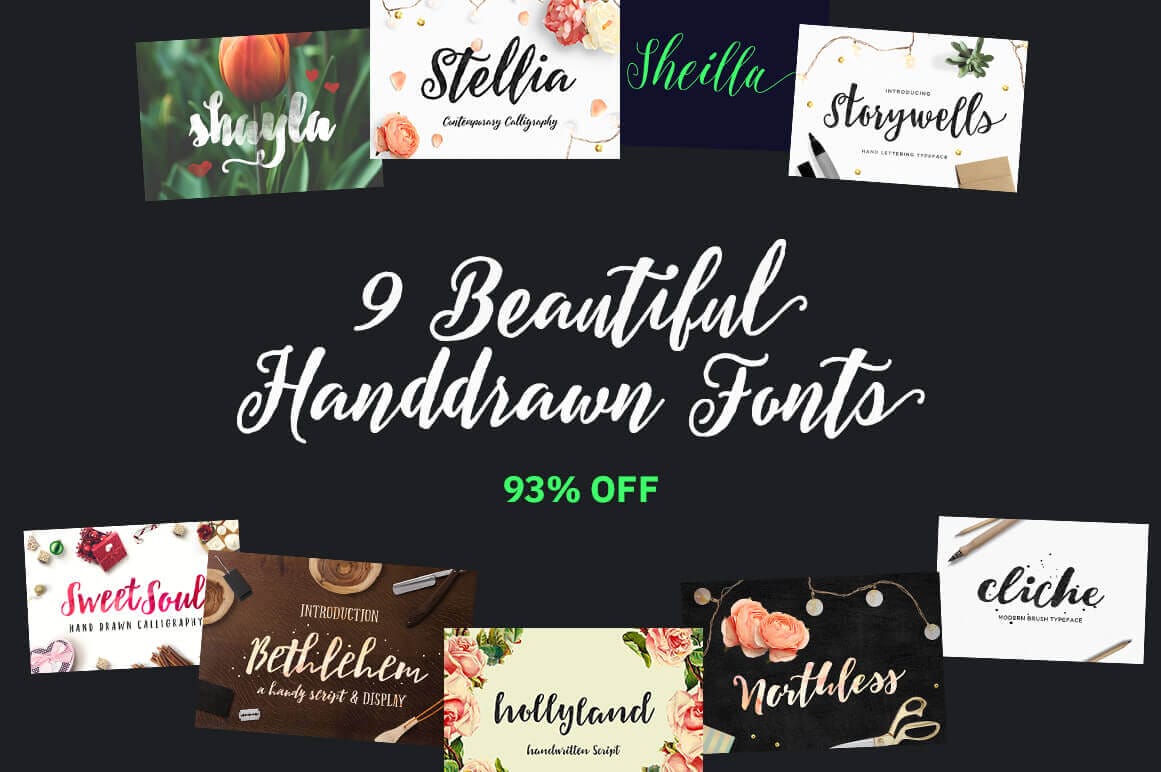
Whether you’re looking to add to your existing collection of script fonts or just getting started, this Mighty Deal from Typezilla was made for you! You’ll snag 9 beautiful hand-drawn typefaces with a wide range of styles from elegant calligraphy to a more personal natural feeling. Mix it up with a variety of OpenType Features.
- Beautiful variety of script styles.
- Perfect collection for creating wedding invitations, greeting cards, T-shirts, posters, mugs, quotes and more.
- Flexible fonts – packed with OpenType Features such as stylistic characters, alternates and ligatures.
- Mix and match fonts to create the perfect masterpiece.